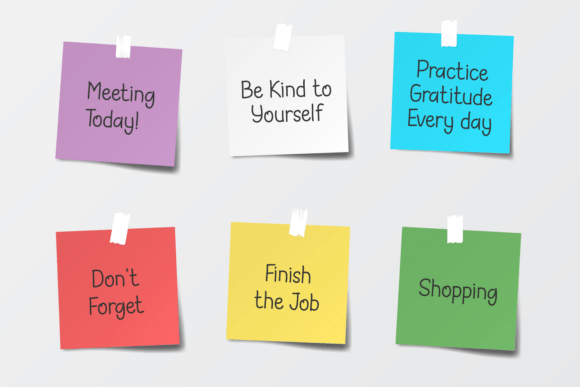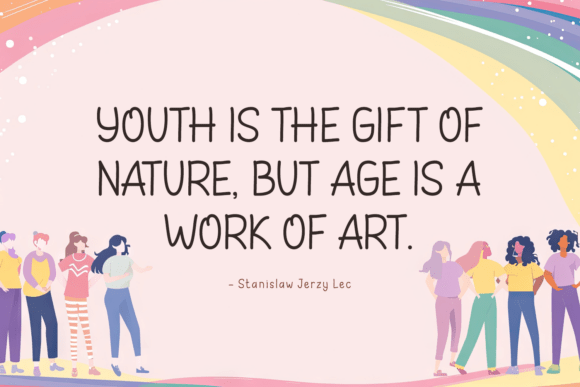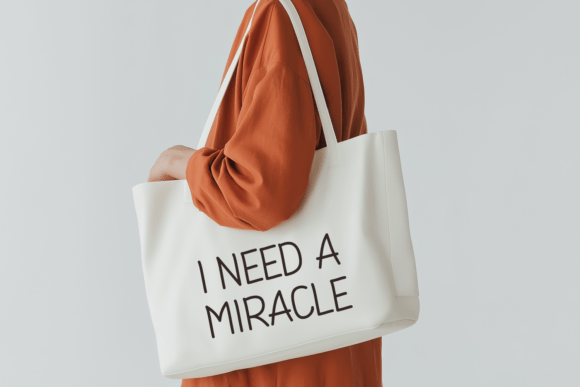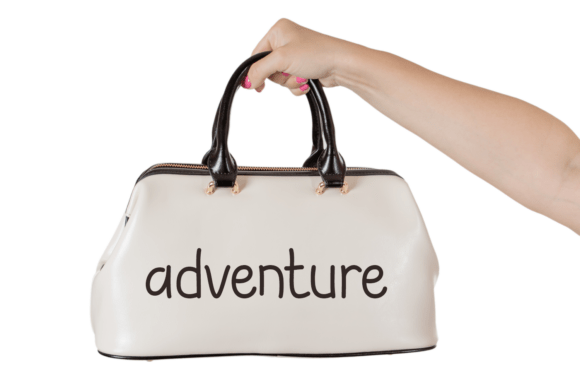
Cute Youth Font: The Perfect Choice for Playful and Creative Designs
Are you a designer or crafter looking for a font that can add a touch of playfulness and charm to your projects? Look no further than Cute Youth Font! This clean and playful handwritten font is perfect for creating a variety of designs, from kids’ materials to digital planners, and everything in between.
What is Cute Youth Font?
Cute Youth Font is a soft, rounded font that exudes a simple and childlike feel. Its clean lines and easy readability make it perfect for use in a variety of applications, including kids’ designs, learning materials, posters, and digital planners. The font’s friendly and approachable style is sure to delight audiences of all ages.
Key Features of Cute Youth Font
- Clean and Playful Style: Cute Youth Font features a clean and playful style that is perfect for creating fun and engaging designs.
- Soft and Rounded: The font’s soft and rounded lines give it a gentle and approachable feel that is perfect for kids’ designs and learning materials.
- Easy Readability: Cute Youth Font is designed to be easy to read, making it perfect for use in digital planners, posters, and other materials where readability is key.
- Childlike Feel: The font’s simple and childlike feel makes it perfect for use in kids’ designs, learning materials, and other applications where a playful style is desired.
Uses for Cute Youth Font
Cute Youth Font is a versatile font that can be used in a variety of applications, including:
- Kids’ Designs: The font’s playful and childlike style makes it perfect for use in kids’ designs, such as children’s books, nursery rhymes, and kids’ websites.
- Learning Materials: Cute Youth Font is a great choice for learning materials, such as worksheets, activity sheets, and educational posters.
- Posters: The font’s bold and playful style makes it perfect for use in posters, whether you’re creating a poster for a kids’ event or a promotional poster for a business.
- Digital Planners: Cute Youth Font is a great choice for digital planners, such as printable planners, journals, and organizers.
Why Choose Cute Youth Font?
There are many reasons why Cute Youth Font is a great choice for designers and crafters. Here are just a few:
- Unique Style: Cute Youth Font has a unique and playful style that is sure to set your designs apart from the crowd.
- Easy to Read: The font’s easy readability makes it perfect for use in a variety of applications, from digital planners to posters.
- Versatile: Cute Youth Font can be used in a wide range of applications, from kids’ designs to digital planners.
- Friendly and Approachable: The font’s friendly and approachable style is sure to delight audiences of all ages.
Tips for Using Cute Youth Font
Here are a few tips for using Cute Youth Font in your designs:
- Pair with Other Fonts: Cute Youth Font pairs well with other fonts, such as bold and sans-serif fonts.
- Use in Combination with Images: The font’s playful style makes it perfect for use in combination with images, such as illustrations and photographs.
- Experiment with Colors: Cute Youth Font looks great in a variety of colors, from bright and bold to soft and pastel.
Cute Youth Font is a clean and playful handwritten font that is perfect for designers and crafters looking to add a touch of playfulness and charm to their projects. With its easy readability, friendly style, and versatile uses, Cute Youth Font is a great choice for a wide range of applications. Whether you’re creating kids’ designs, learning materials, posters, or digital planners, Cute Youth Font is sure to delight audiences of all ages.